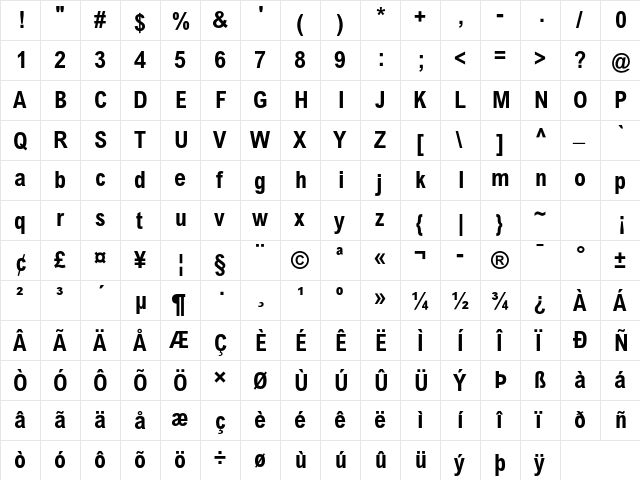
Arial MT Std Bold Cond
| Foundry | Agfa Monotype Corporation |
Design Context for Arial MT Std Typeface
Arial MT Std offers clean, dependable letterforms without strong stylistic allegiance, making it a practical choice for designers who need flexibility. The heavy weight commands attention and anchors typographic hierarchies. The condensed width makes it efficient for tight spaces without sacrificing legibility.